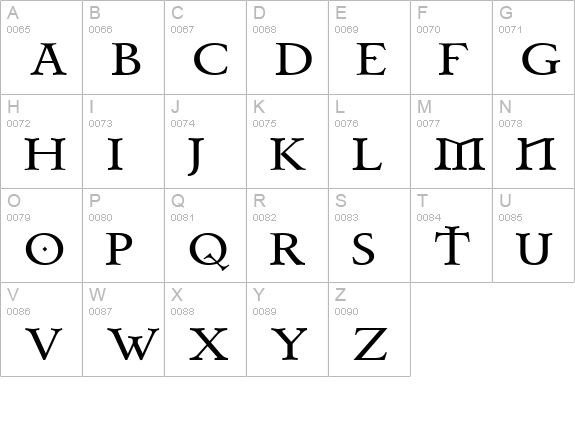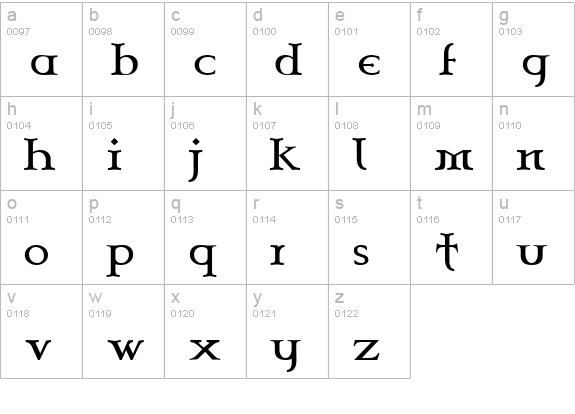
Celtic Garamond the 2nd Font Details
Celtic Garamond the 2nd is a classic and elegant font that exudes sophistication and charm. With its intricate Celtic-inspired design and timeless Garamond style, this font is perfect for adding a touch of old-world beauty to your projects. The graceful curves and intricate details of Celtic Garamond the 2nd make it a versatile choice for a wide range of design applications, from invitations and stationery to logos and branding. What's even better is that Celtic Garamond the 2nd is available for free download at FontsMarket.com. This means you can easily access this stunning font and incorporate its unique beauty into your designs without any cost. So why wait? Download Celtic Garamond the 2nd today and elevate your projects with its timeless appeal.